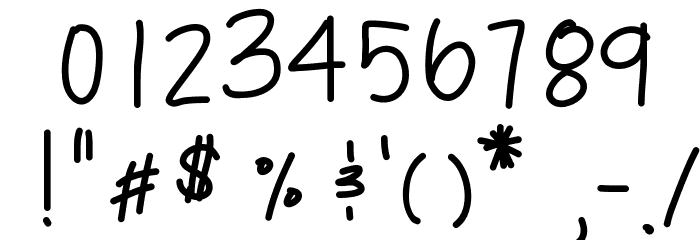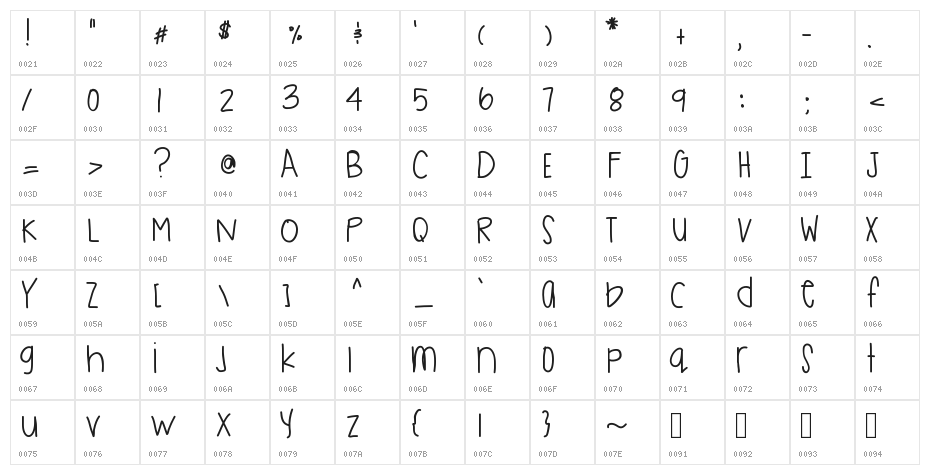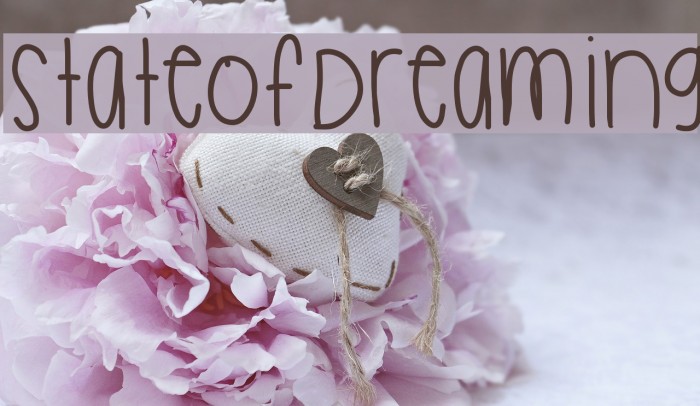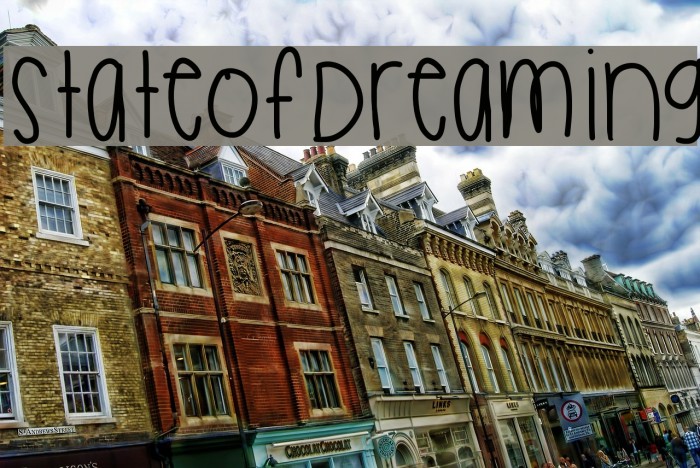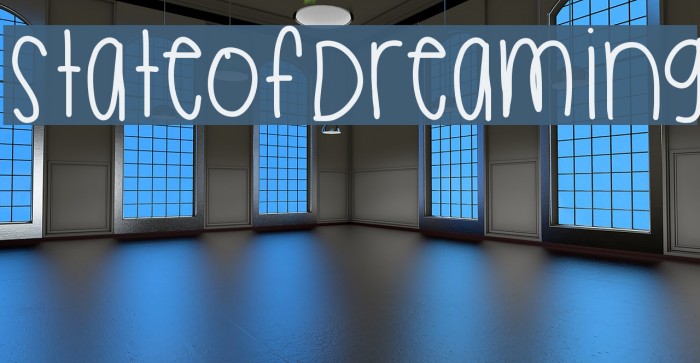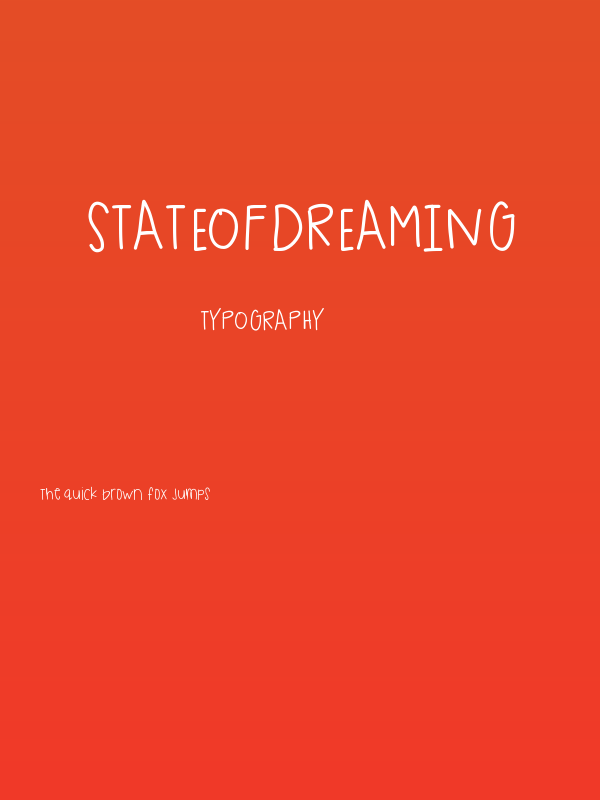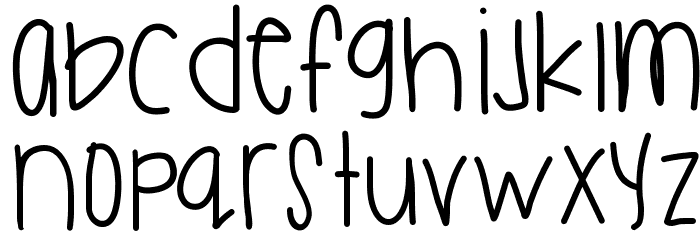
StateOfDreaming Font
StateOfDreaming Description
This playful and whimsical font features a handwritten style with a casual and friendly appearance. The characters are slightly irregular, adding a personal touch to the text. The uppercase and lowercase letters maintain a consistent height, creating a balanced look. The numbers and special characters are designed to match the overall style, ensuring cohesion throughout. The strokes are smooth and rounded, contributing to the font's approachable and informal vibe. This font is ideal for projects that require a touch of personality and creativity.
| Proposed Projects | Great for greeting cards, children's books, personal blogs, and creative branding. |